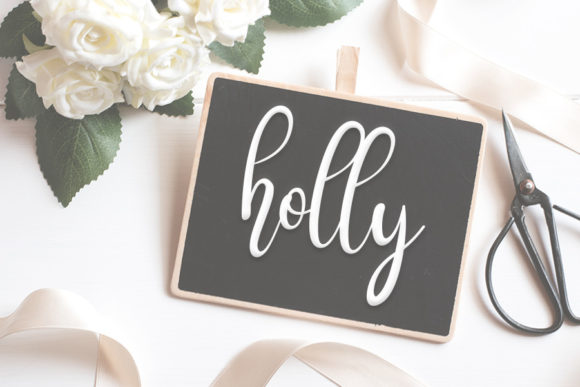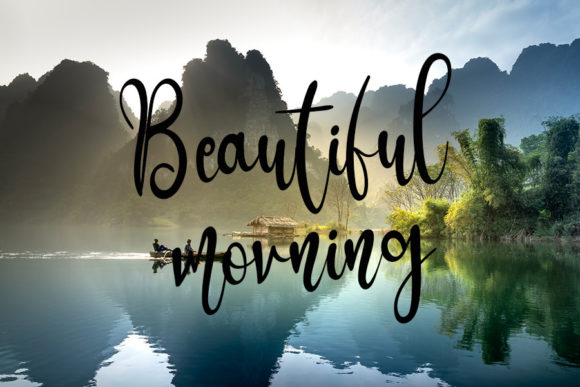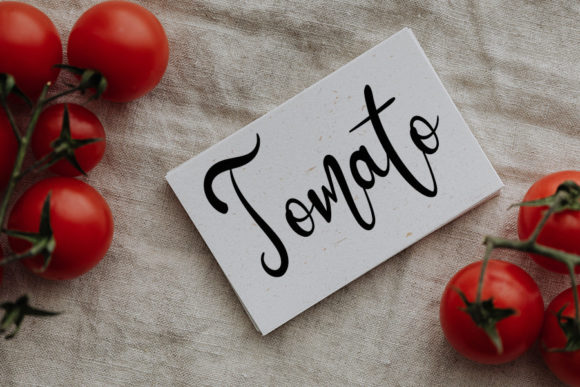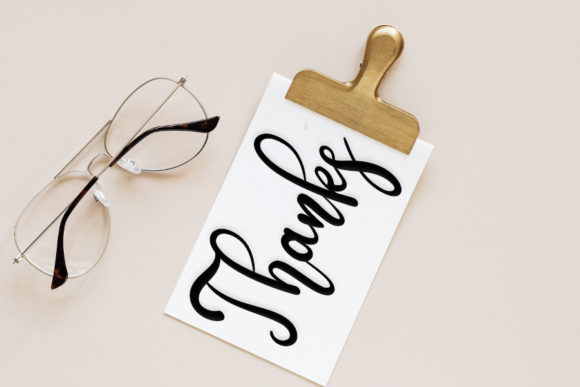
Discover the Charm of Atlanta Font: A Sweet and Delicate Handwritten Font
Are you looking for a font that exudes romance, elegance, and playfulness? Look no further than the Atlanta Font! This beautiful handwritten font is perfect for designers and crafters who want to add a touch of whimsy and sophistication to their projects. In this article, we’ll dive into the world of Atlanta Font, exploring its features, uses, and benefits.
What is Atlanta Font?
Atlanta Font is a sweet and delicate handwritten font that is sure to capture your heart. Its dainty and joyful design makes it ideal for writing wedding invitations, cards, or any other design that requires a romantic, personalized touch. The font’s elegant and cursive strokes are perfect for creating beautiful, eye-catching text that will leave a lasting impression.
Key Features of Atlanta Font
- Handwritten design: Atlanta Font boasts a beautiful, handwritten design that is both elegant and playful.
- Delicate strokes: The font’s delicate strokes are perfect for creating romantic and sophisticated text.
- Easy to read: Despite its delicate design, Atlanta Font is easy to read, making it perfect for body text and headings.
- Versatile: Atlanta Font can be used for a wide range of projects, from wedding invitations to social media graphics.
Uses of Atlanta Font
Atlanta Font is a versatile font that can be used for a variety of projects, including:
- Wedding invitations: The font’s romantic and elegant design makes it perfect for wedding invitations, save-the-dates, and thank-you cards.
- Cards and stationery: Atlanta Font is ideal for creating beautiful cards, stationery, and gift tags.
- Social media graphics: The font’s playful and elegant design makes it perfect for social media graphics, such as quotes, posters, and ads.
- Branding and packaging: Atlanta Font can be used for branding and packaging projects, such as logos, labels, and product packaging.
Benefits of Using Atlanta Font
Using Atlanta Font in your projects offers several benefits, including:
- Unique and eye-catching design: Atlanta Font’s delicate and elegant design will set your projects apart from the rest.
- Time-saving: With Atlanta Font, you can create beautiful text in minutes, saving you time and effort.
Tips for Using Atlanta Font
Here are some tips for getting the most out of Atlanta Font:
- Pair with bold fonts: Pair Atlanta Font with bold fonts to create a striking contrast and add visual interest to your projects.
- Experiment with colors: Try out different colors and textures to add depth and personality to your text.
- Use for headings and titles: Atlanta Font is perfect for headings and titles, where its elegant design can shine.
Atlanta Font is a beautiful and versatile handwritten font that is perfect for designers and crafters looking to add a touch of romance and elegance to their projects. With its delicate strokes, easy-to-read design, and versatile uses, Atlanta Font is an excellent choice for a wide range of projects. Whether you’re creating wedding invitations, social media graphics, or branding materials, Atlanta Font is sure to impress.